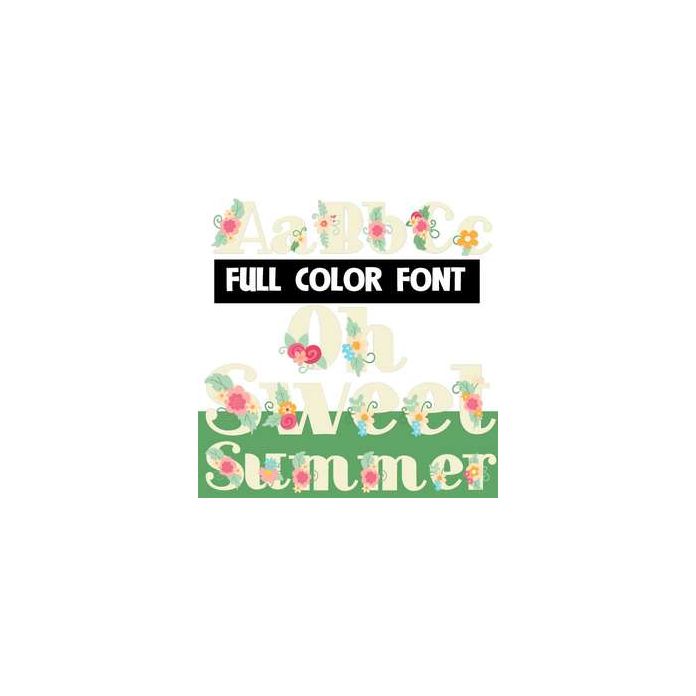
This full-color font features creamy color letters w/ pastel florals. This font works best for titles, displays, posters and more. Please note color fonts will show as black in non compatible programs. This font type is compatible with Silhouette Studio.